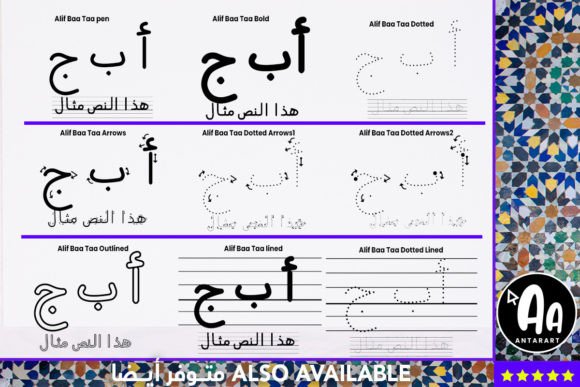
Alif Baa Taa Dotted Arrows One Font
About Alif Baa Taa Dotted Arrows OneFont
Alif Baa Taa Dotted Arrows OneFont is a specialized handwritten Arabic typeface created for effective learning and teaching. With dotted strokes and directional arrows, it helps learners practice Arabic letters while following the correct writing order. Because of its unique and practical structure, Alif Baa Taa Dotted Arrows One Font is an excellent tool for worksheets, classroom lessons, and e-learning applications.
A Handwritten Arabic Typeface for Education
Educational fonts need to be clear, simple, and engaging. Alif Baa Taa Dotted Arrows One Font provides dotted outlines for tracing while directional arrows guide the learner in stroke order. This method reinforces proper handwriting habits from the start. Moreover, its handwritten style ensures that practice feels authentic and natural. As a result, this typeface is a reliable choice for teachers, tutors, and students.
Perfect Typeface for Worksheets and Tracing
For educators, Alif Baa Taa Dotted Arrows One Font is an invaluable resource. For example, it can be used to create worksheets where students trace Arabic letters step by step. In addition, it works beautifully for flashcards, practice books, and homework sheets. Because of its dotted arrows, learners can gain confidence while improving accuracy and fluency.
A Typeface for Students and Self-Learners
Students and language enthusiasts will find Alif Baa Taa Dotted Arrows OneFont equally beneficial. It allows beginners to practice proper letter formation while reinforcing memory through guided tracing. Furthermore, it can be paired with lined or outlined Arabic fonts to create progressive exercises, moving from tracing to freehand writing. This makes the font suitable for both beginners and intermediate learners.
Flexible Across Print and Digital Platforms
Another advantage of Alif Baa Taa Dotted Arrows OneFont is its adaptability. In print, it is perfect for textbooks, classroom worksheets, and posters. Digitally, it fits well into educational apps, e-learning modules, and online practice platforms. Since it scales clearly in both small and large sizes, this handwritten script is useful for a wide variety of teaching and learning applications.